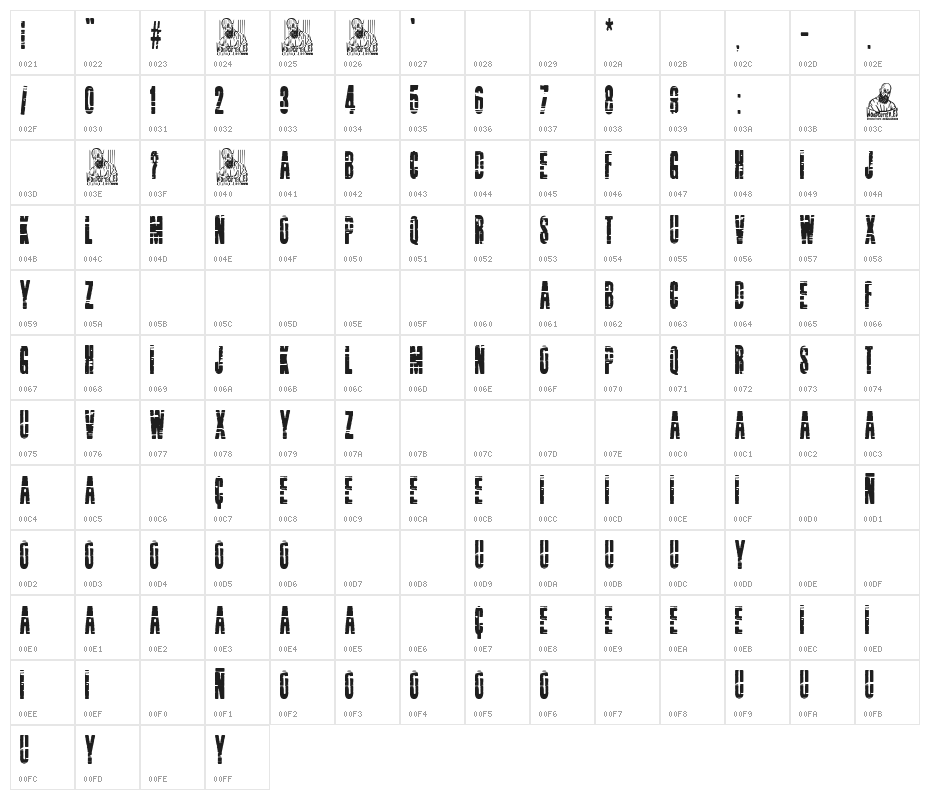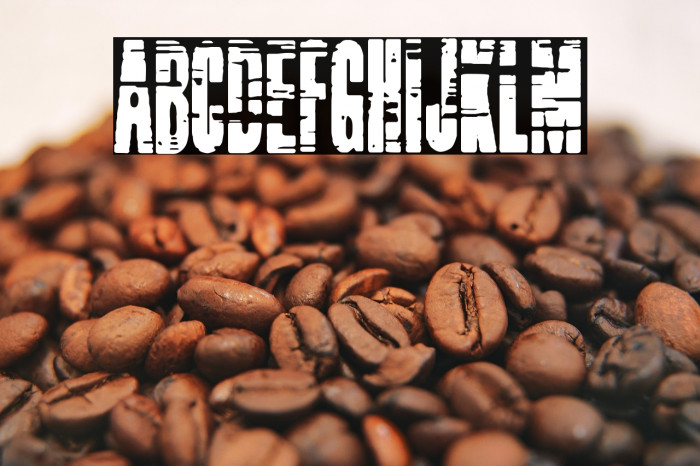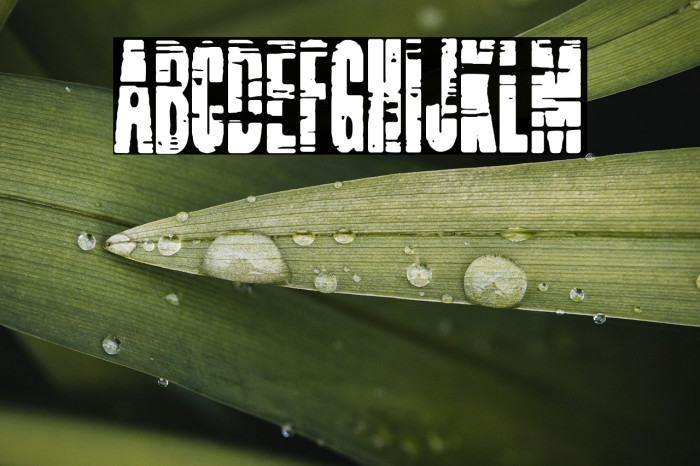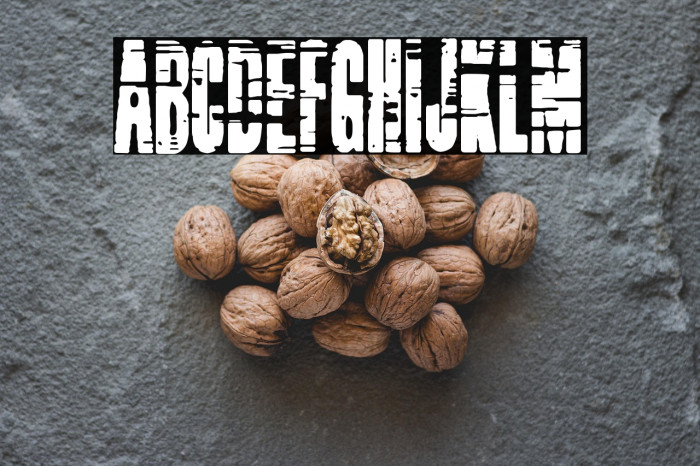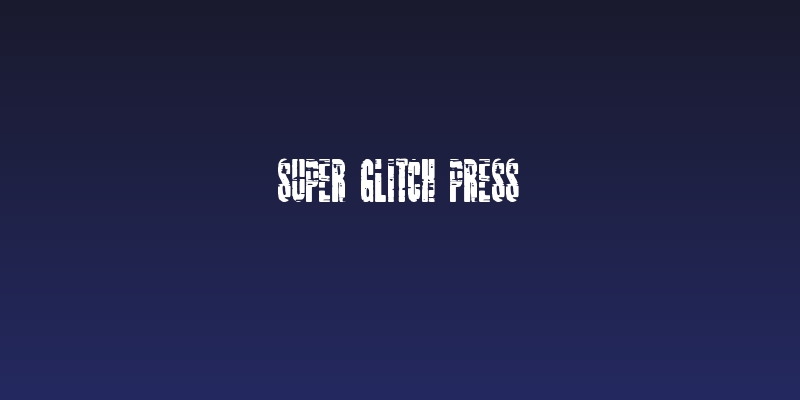
Super Glitch Press Font
Super Glitch Press Description
This font features a bold and distressed style, characterized by its glitch-like appearance. Each character appears fragmented and worn, giving it a rugged, edgy look. The uppercase and lowercase letters maintain a consistent height, while the numbers and special characters follow the same distressed pattern. This font's unique style makes it stand out, with a strong visual impact that suggests a sense of urgency or disruption. The overall design is bold and eye-catching, suitable for projects that require a distinctive and unconventional typeface.
| Overall Style | Modern, Edgy |
| Proposed Projects | Ideal for music album covers, edgy posters, streetwear branding, or any project needing a bold, unconventional typeface. |